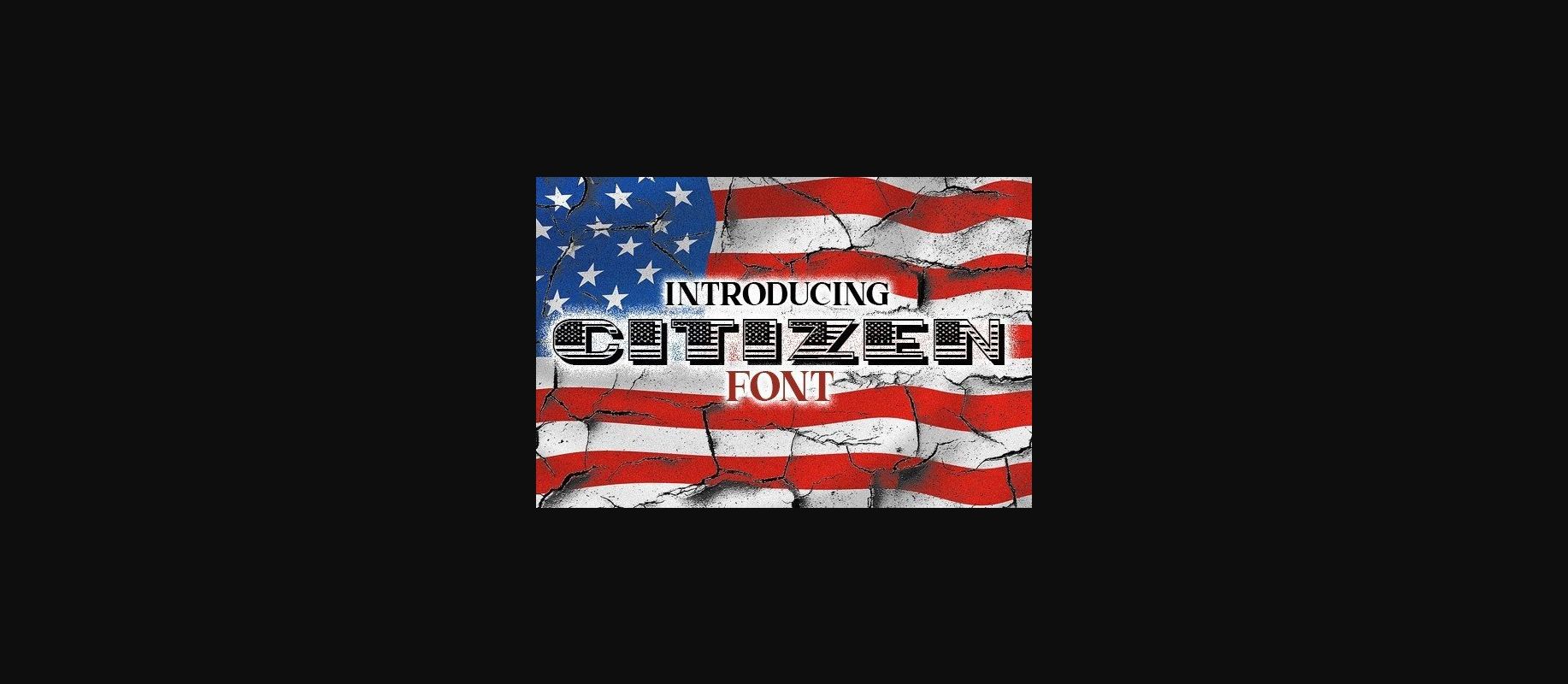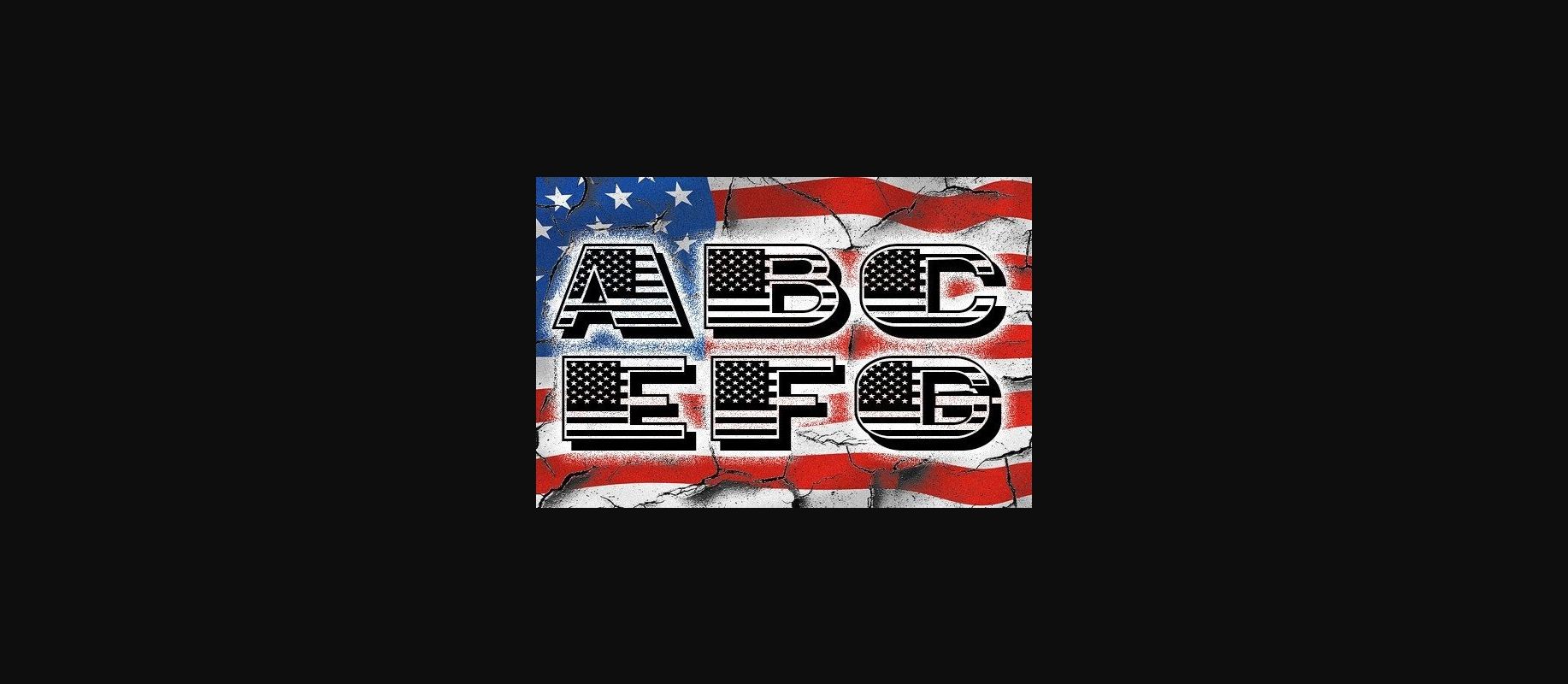
Citizen Font
About Citizen Font
Citizen is an awesome decorative font that will look stunning on any of your designs. Use this font on posters, headlines, flags, and much more.